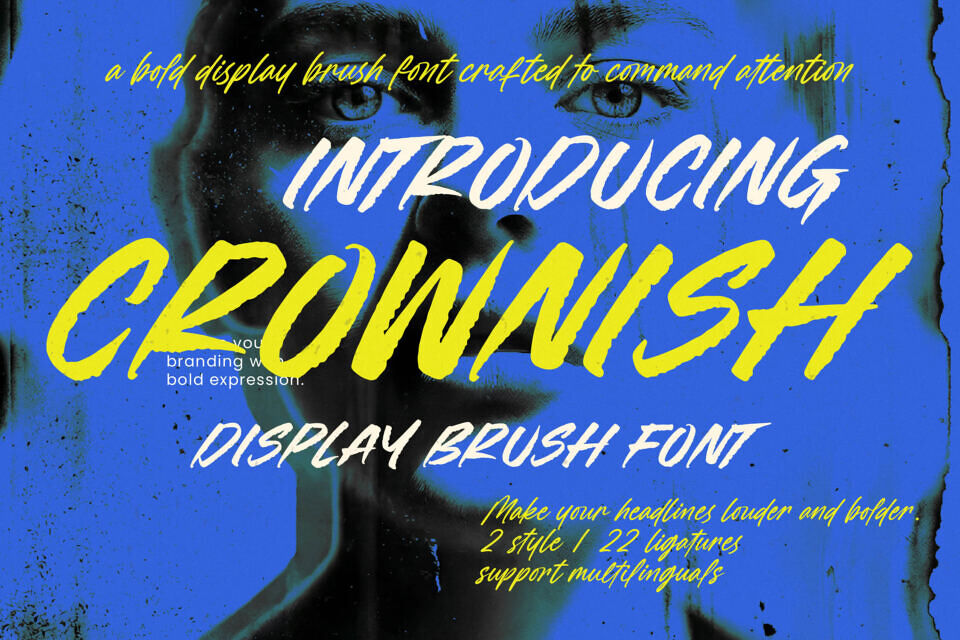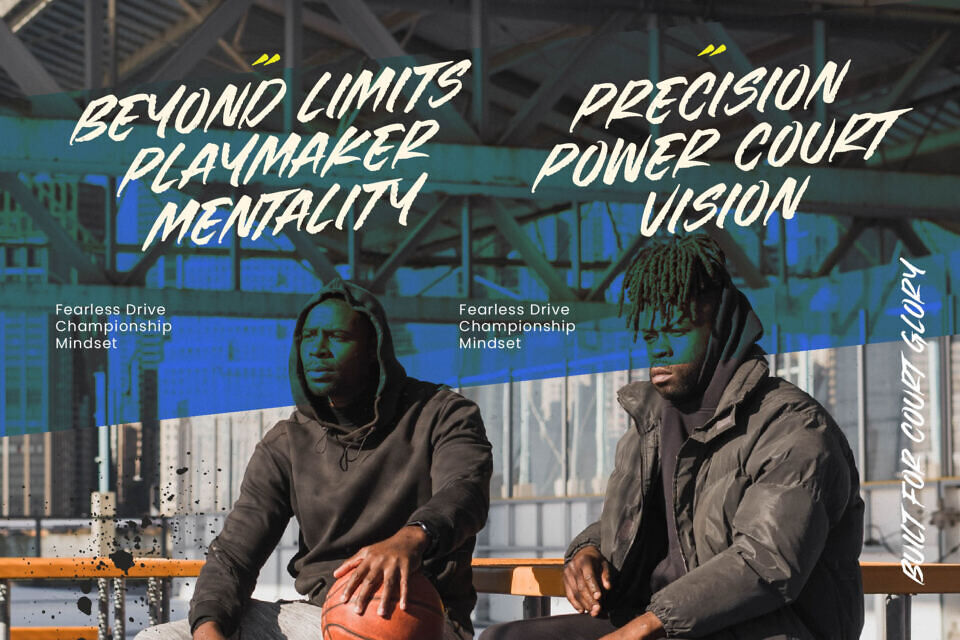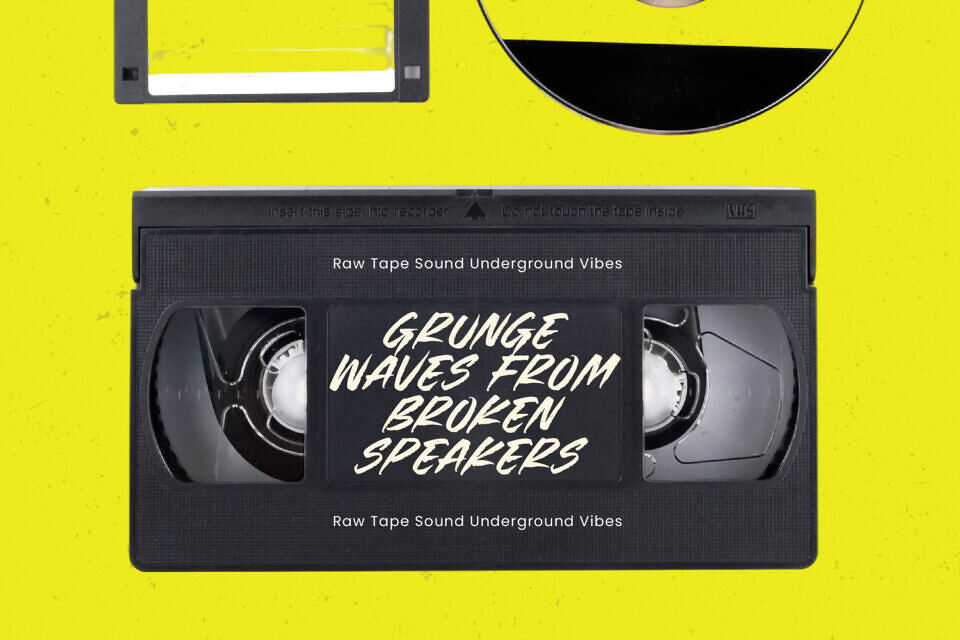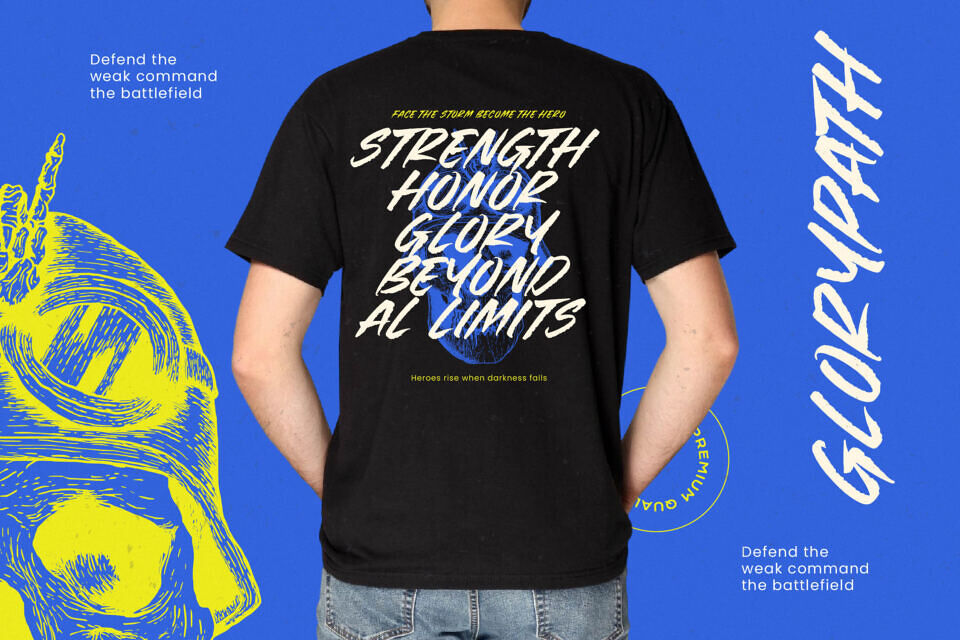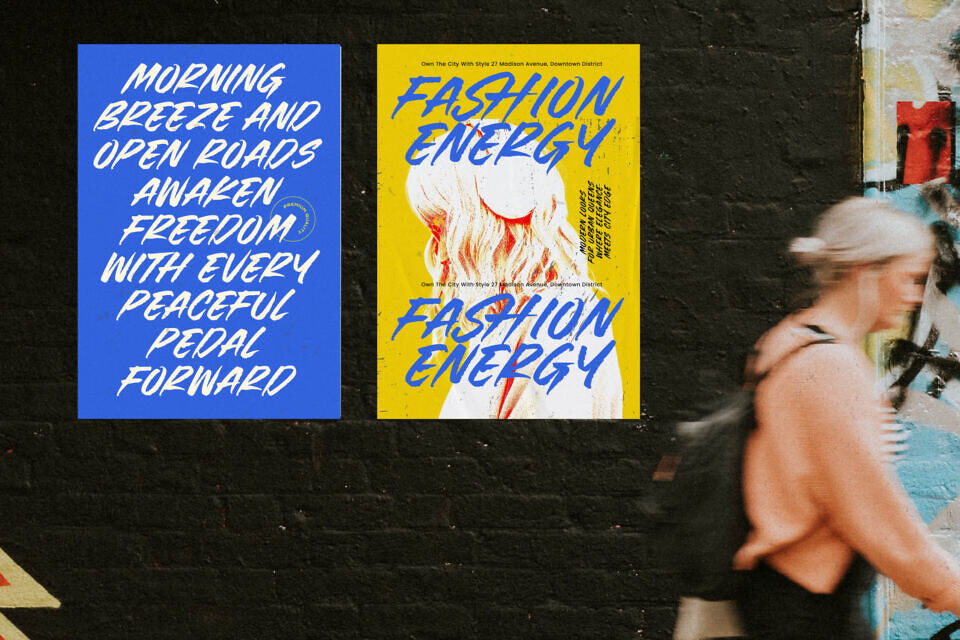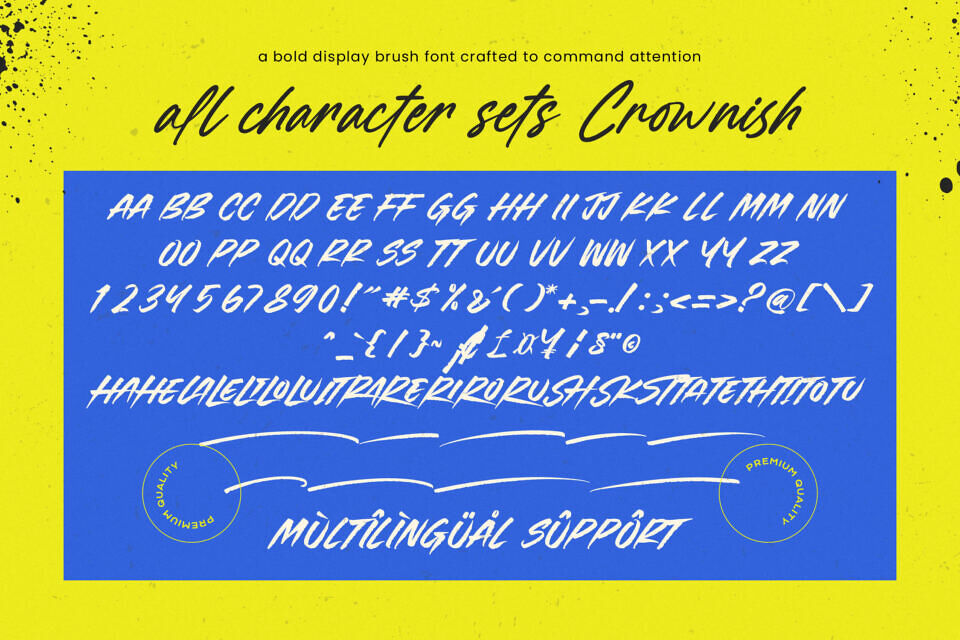
Introducing Crownish, a bold display font that exudes energy and style. Inspired by urban street art, it combines movement and intensity with a handmade, tactile feel.
With its sharp angles and thick strokes, Crownish brings a high-contrast, modern edge to designs, making it perfect for editorial layouts, branding, and packaging that demands attention. Its versatility and loud, distinct style make it ideal for those seeking a massive branding impact.